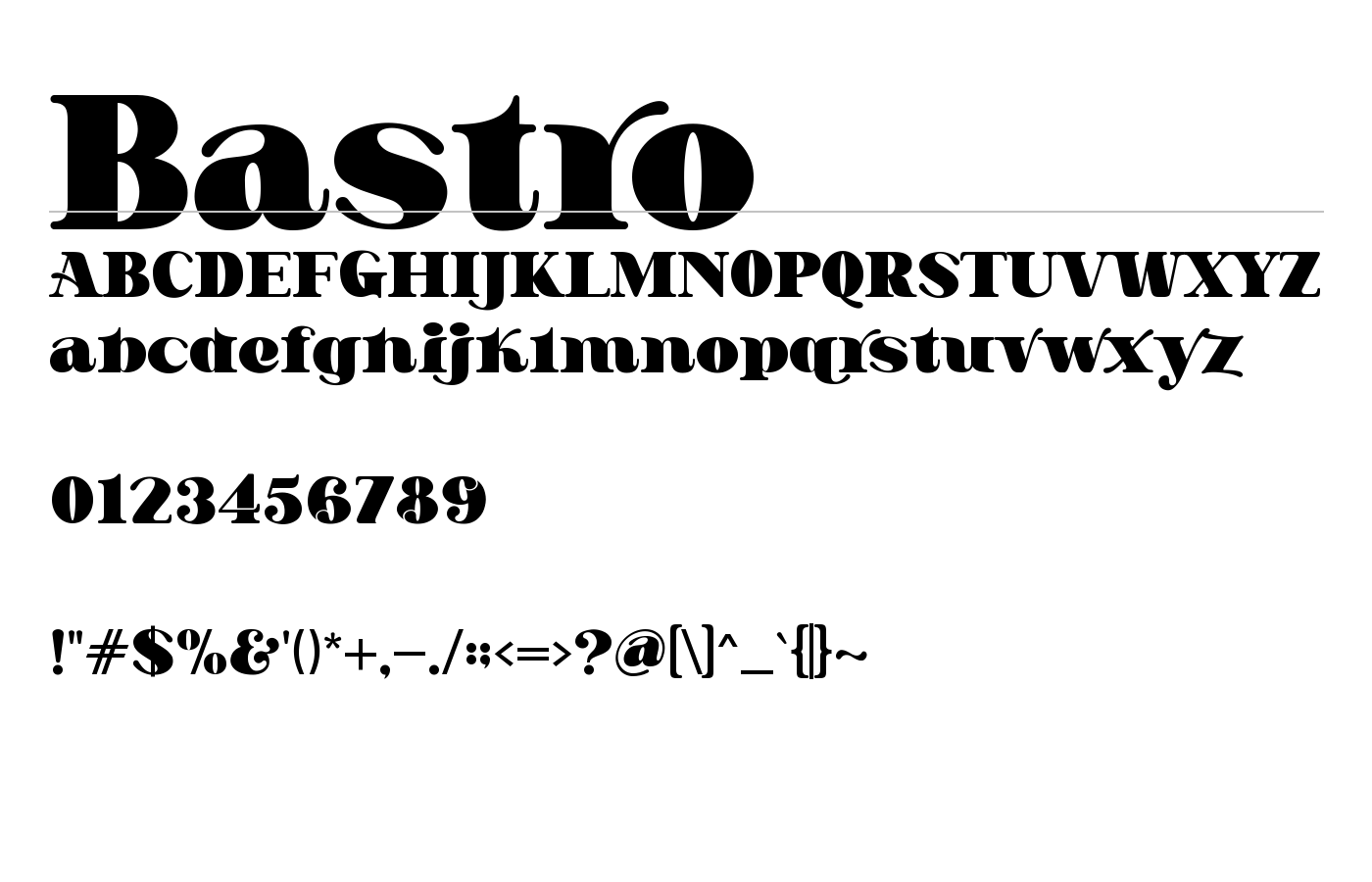
Bastro is a bold slab serif font with a strong presence, featuring thick, blocky serifs and high contrast between thick and thin strokes. Its unique letterforms, including distinctive curves and a robust structure, give it a vintage yet modern feel, making it ideal for eye-catching headlines, logos, and packaging that demand a bold, stylish statement. This font works well in branding and editorial designs where a confident, authoritative, and slightly playful tone is desired.
Bastro Font
About Bastro Font
| Font family | Bastro Font |
| Designer | Burhan Afif |